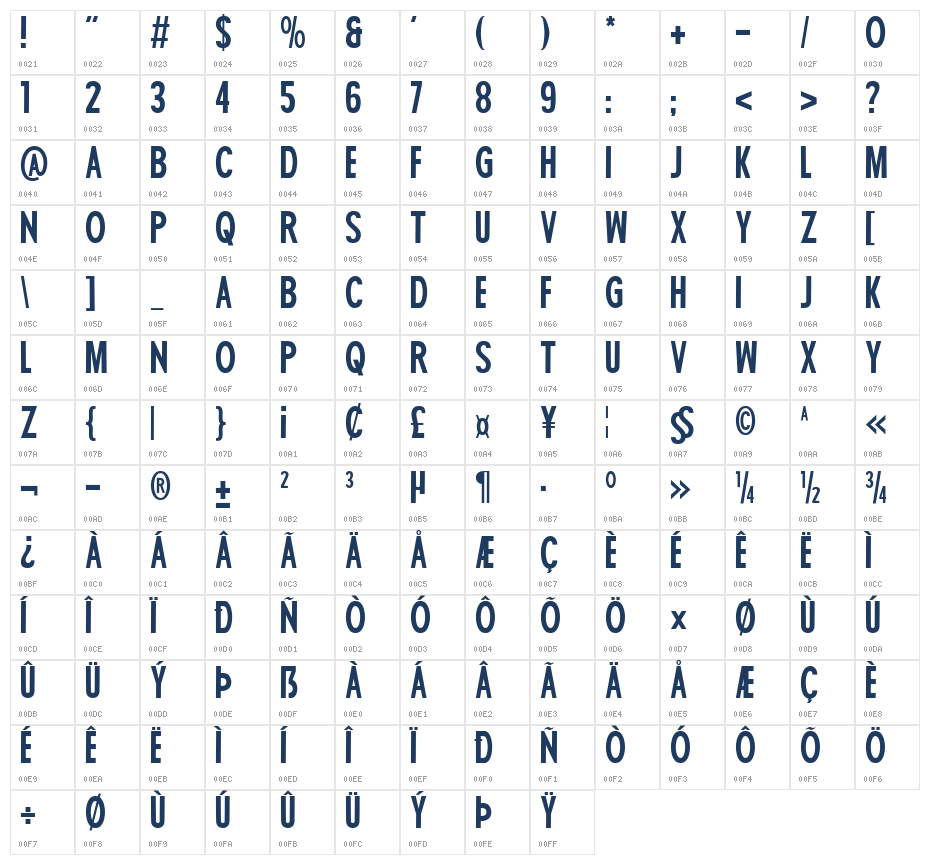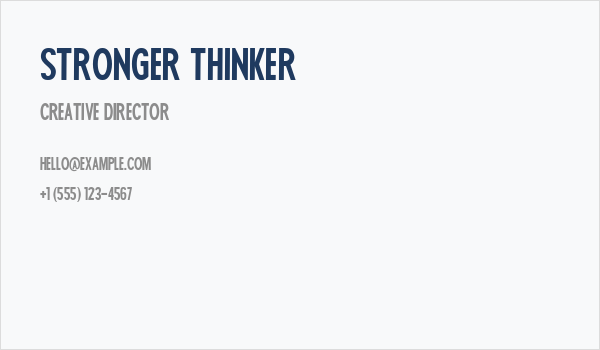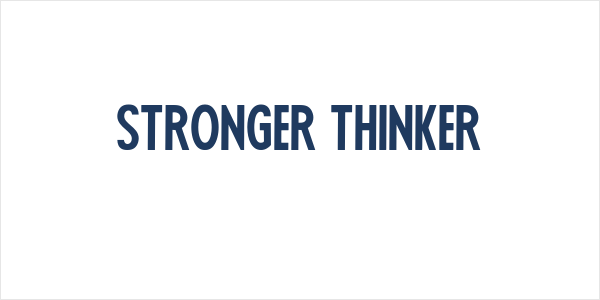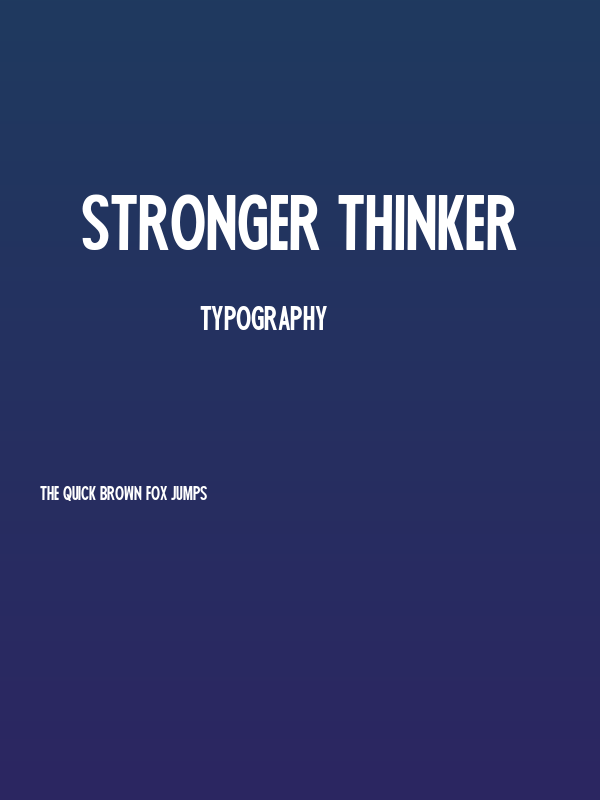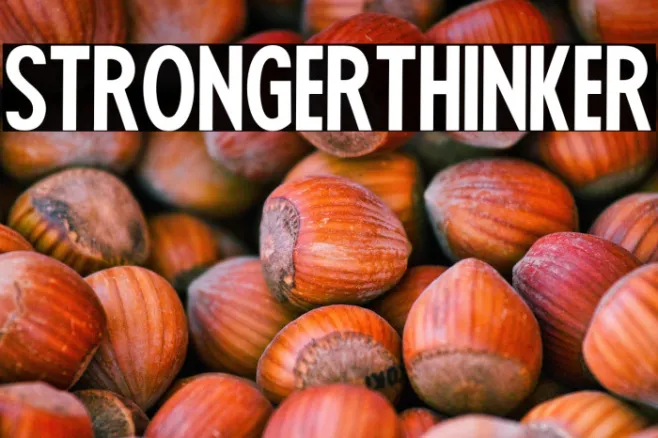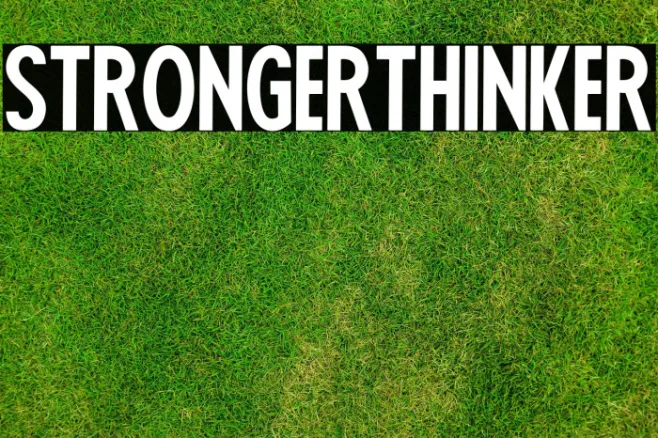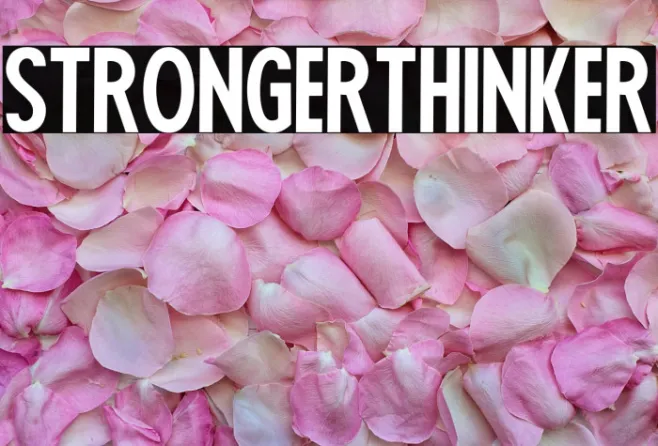
Stronger Thinker Font
Stronger Thinker Description
Bold, sans-serif, uppercase font with a slightly condensed appearance and uniform stroke width.
| Overall Style | Modern, Bold, Clean |